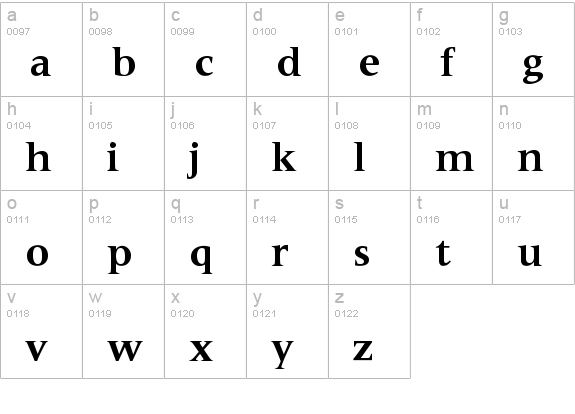
Meridien Bold Font Details
Meridien Bold is a strong, high-contrast variant in the Meridien typeface family \xE2\x80\x94 well suited to headlines, attention-grabbing titles, and strong calls-to-action.
Introducing Meridien Bold - a sleek and modern font that exudes confidence and sophistication. With its clean lines and bold strokes, Meridien Bold is the perfect choice for making a statement in your design projects. Whether you're creating a logo, poster, or website, this versatile font will make your text stand out and leave a lasting impression. The best part? Meridien Bold is available for free download at FontsMarket.com. This means you can easily add this high-quality font to your collection without any cost. Don't miss out on the opportunity to elevate your designs with Meridien Bold - download it today and see the difference it can make in your projects.